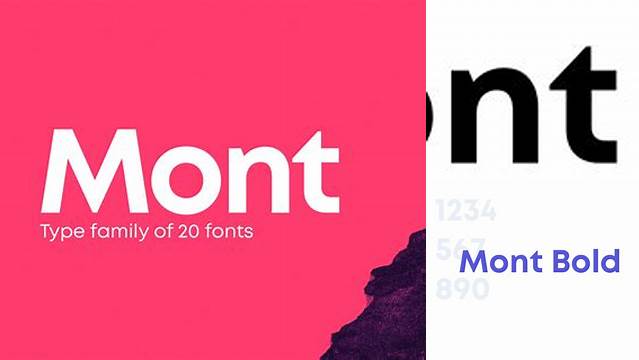
Hey guys! Are you looking for a clean, modern, and versatile font for your next project? Look no further! The Mont Bold font family is a fantastic choice, and the best part is, you can often find it for free download. In this article, we'll dive deep into everything you need to know about Mont Bold, including where to find it, how to use it, and why it's such a popular option for designers and creatives.
Mont Bold: An Introduction
Before we get started, let's get this out of the way. The Mont Bold font family is highly versatile, and can be applied across an array of design types. Mont Bold font is a geometric sans-serif typeface that exudes modernity and clarity. Designed with meticulous attention to detail, this font family offers a wide range of weights, from light to extra bold, making it suitable for various design applications. Its clean lines and balanced proportions make it highly legible, whether used for headlines, body text, or branding materials. If you are a designer, Mont Bold font will quickly become a favorite.
Using Mont Bold in Graphic Design
The Mont Bold font is a powerhouse in graphic design. Its clean and modern aesthetic makes it perfect for logos, posters, and website designs. Because of its geometric nature, it adds a sophisticated touch to any project. When using Mont Bold in graphic design, remember to pair it with complementary fonts for a balanced look. For example, you could pair Mont Bold with a serif font like Times New Roman or a lighter sans-serif like Open Sans.
Mont Bold for Branding and Logo Design
For branding and logo design, the Mont Bold font is an excellent choice. Its strong, clear lines convey professionalism and confidence, making it ideal for representing your brand's identity. When using Mont Bold in a logo, consider the overall message you want to communicate. The bold weight can represent strength and stability, while the lighter weights can convey elegance and simplicity.
Pairing Mont Bold with Other Fonts
The art of pairing fonts is crucial for creating visually appealing designs. Mont Bold font works well with a variety of fonts. As mentioned earlier, pairing it with a serif font can create a classic contrast, while pairing it with a lighter sans-serif can achieve a more modern and minimalist look. Experiment with different combinations to find what works best for your project.
Mont Bold: Web Design Applications
In web design, the Mont Bold font is a reliable choice for headings, body text, and navigation menus. Its excellent legibility ensures that your website content is easy to read on various devices. When using Mont Bold on a website, optimize the font size and line height for the best readability. Also, consider using CSS to style the font and create a cohesive design.
Mont Bold: Print Design Applications
For print design, the Mont Bold font is equally versatile. It works well for brochures, magazines, and business cards. Ensure the font is crisp and clear when designing for print. When preparing your design for printing, convert the text to outlines to avoid font substitution issues.
Mont Bold Font Variations and Weights
The Mont Bold font family typically includes a range of weights, from thin to black. These variations allow you to create visual hierarchy and add emphasis to your designs. Experiment with different weights to see how they impact the overall look and feel of your project. The bold and extra bold weights are great for headlines, while the lighter weights are suitable for body text.
Mont Bold Font Alternatives
If you're looking for alternatives to the Mont Bold font, consider other geometric sans-serif fonts like Montserrat, Futura, and Proxima Nova. These fonts share similar characteristics with Mont Bold and can be used in similar design applications. Each font has its unique nuances, so experiment to find the best fit for your project.
Mont Bold vs. Montserrat: A Comparison
Both Mont Bold font and Montserrat are popular geometric sans-serif fonts. While they share similarities, there are subtle differences. Montserrat tends to have slightly rounder terminals, giving it a friendlier appearance, while Mont Bold has sharper, more defined lines. Ultimately, the choice between the two depends on your personal preference and the specific requirements of your project.
Mont Bold Font: Perfect for Any Occasion
In conclusion, the Mont Bold font is a versatile and modern typeface that is perfect for any occasion. Its clean lines, balanced proportions, and wide range of weights make it an excellent choice for various design applications. Whether you're designing a logo, website, or print materials, Mont Bold can help you achieve a professional and polished look. Remember to always check the license agreement before using the font in commercial projects and experiment with different pairings to find the best fit for your needs. Happy designing, folks!